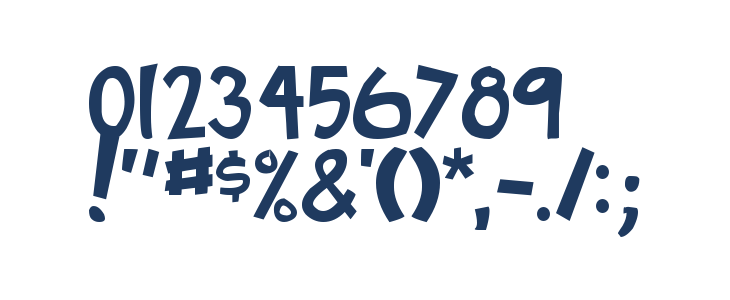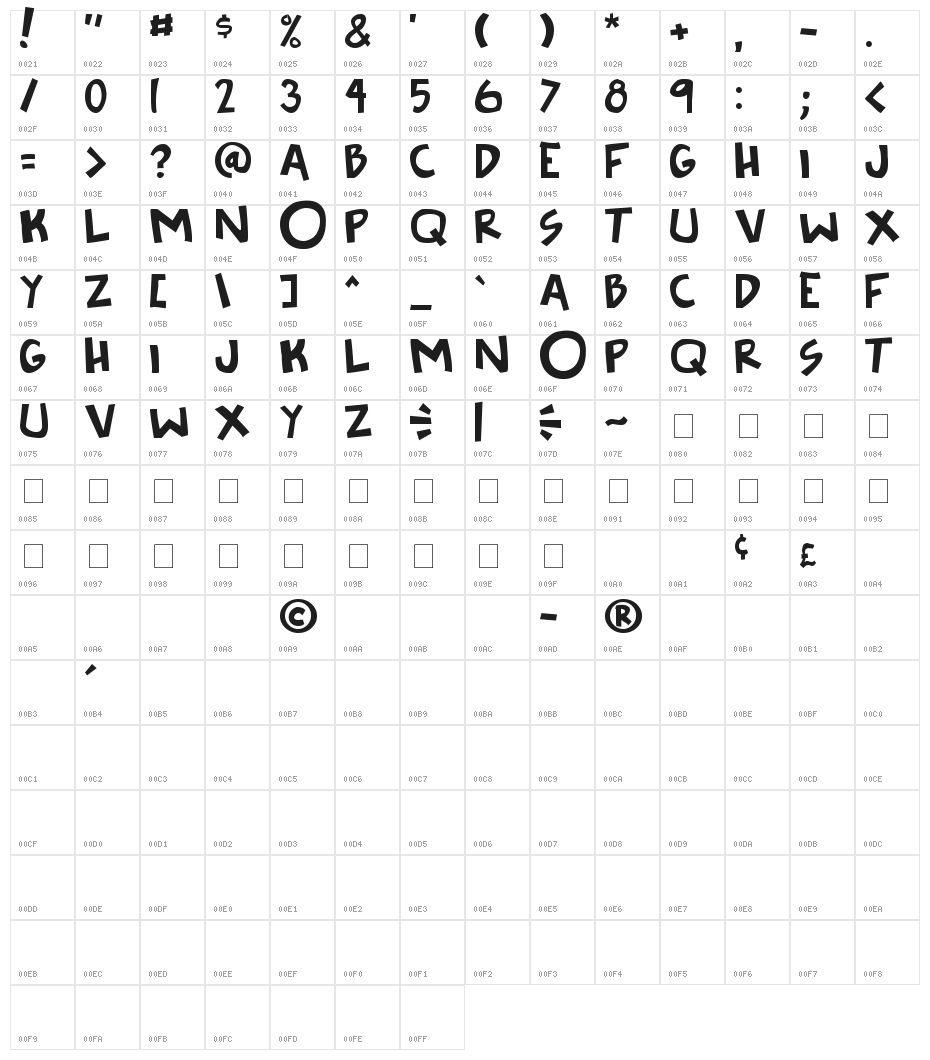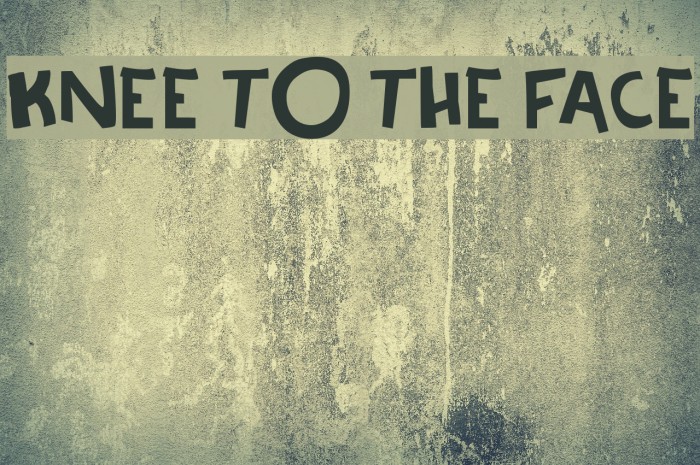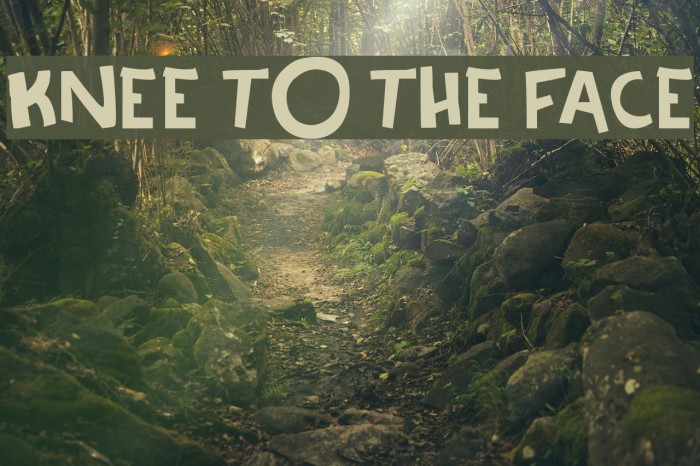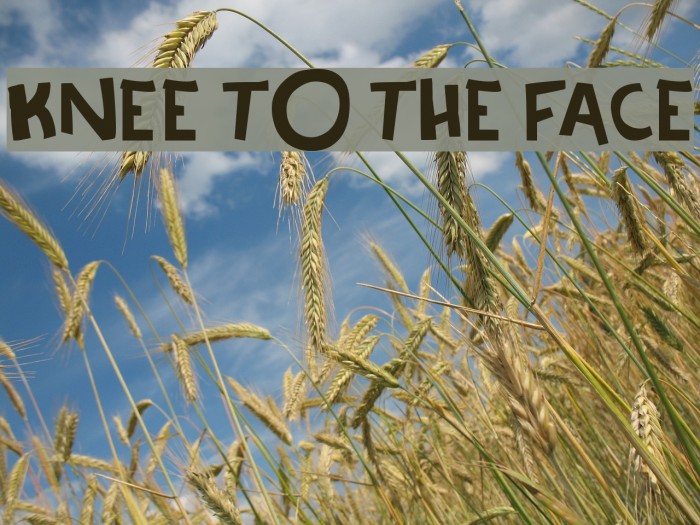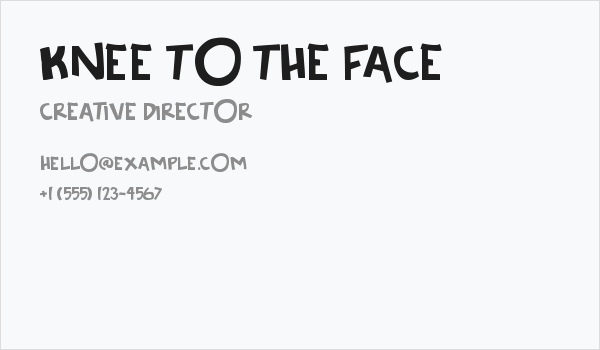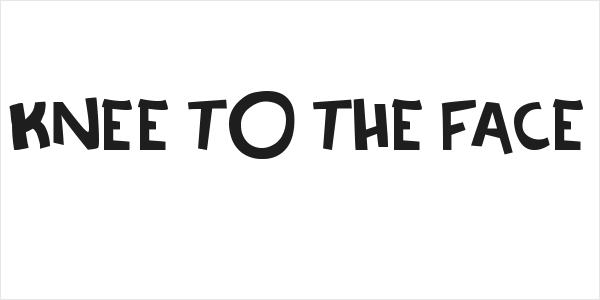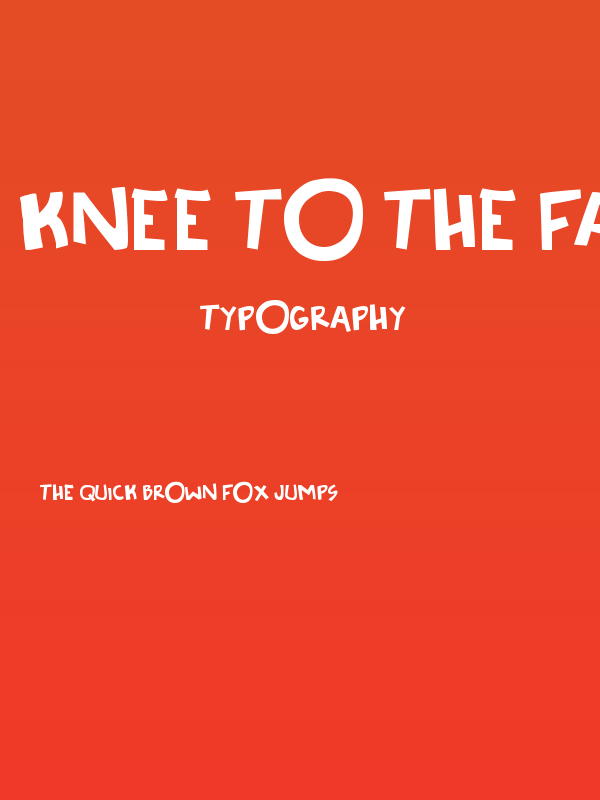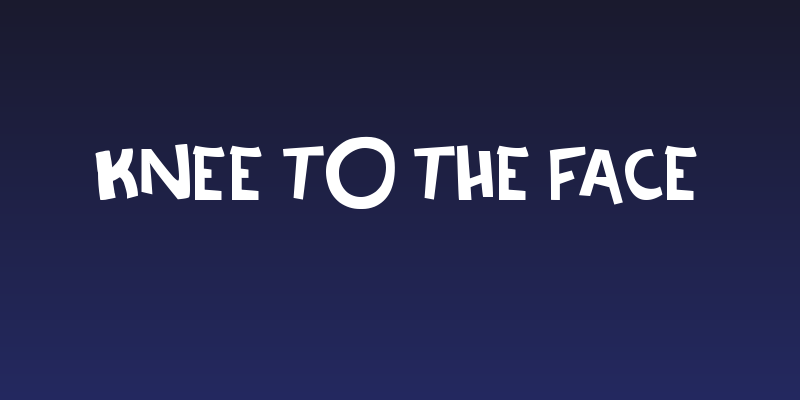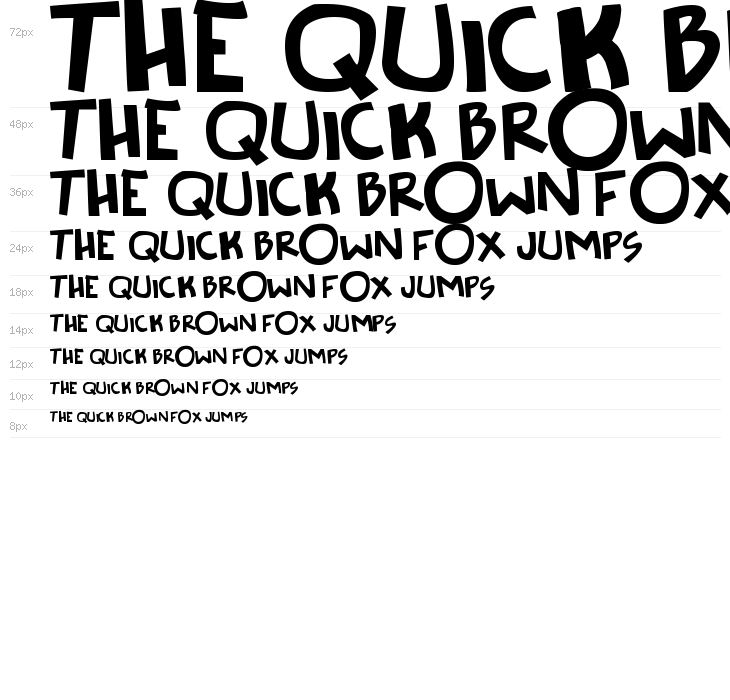
Knee to the face Font
Knee to the face Description
This font features a bold and playful style with a hand-drawn appearance. The characters are slightly irregular, adding a whimsical and energetic feel. The uppercase and lowercase letters maintain a consistent weight, contributing to a cohesive look. The numbers and special characters follow the same playful design, making them suitable for creative projects. The font's thick strokes and rounded edges give it a friendly and approachable vibe, perfect for informal and fun contexts.
| Overall Style | Playful and Whimsical |
| Proposed Projects | Ideal for children's books, comic strips, playful branding, and party invitations. |